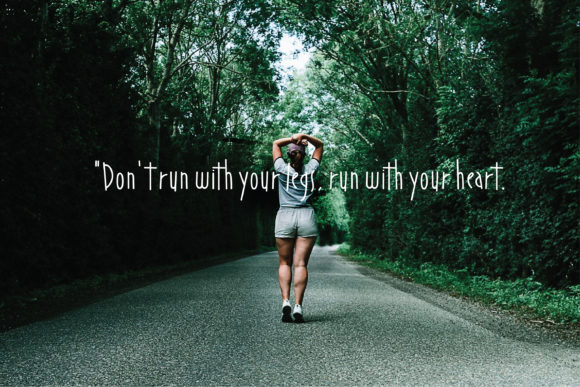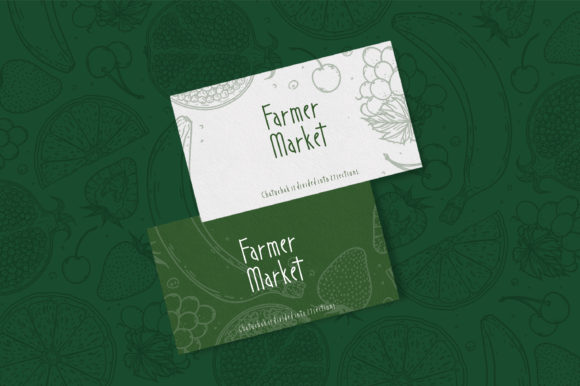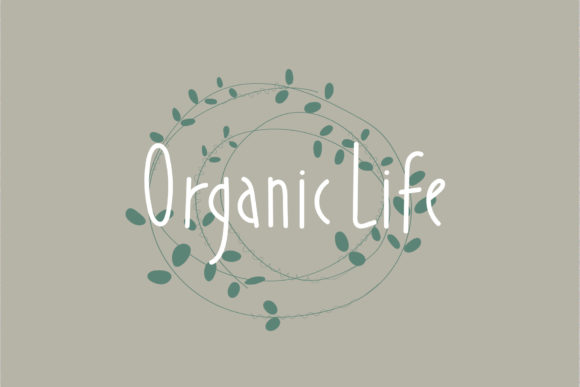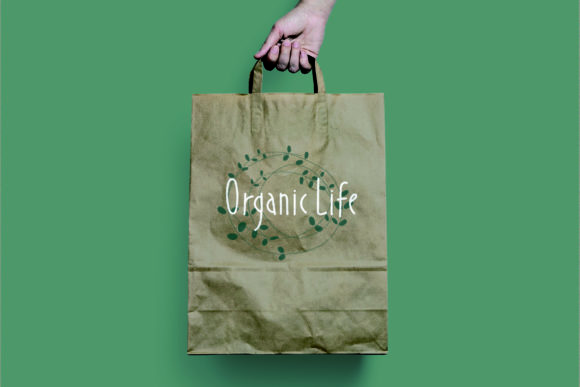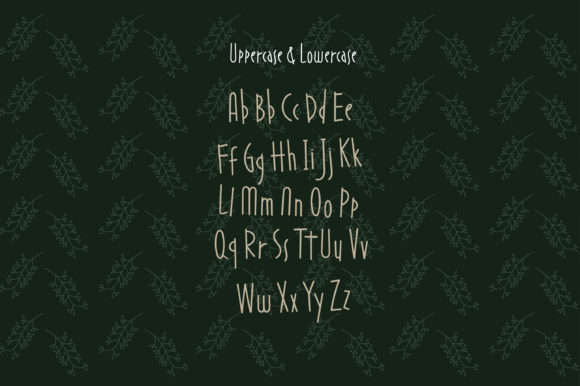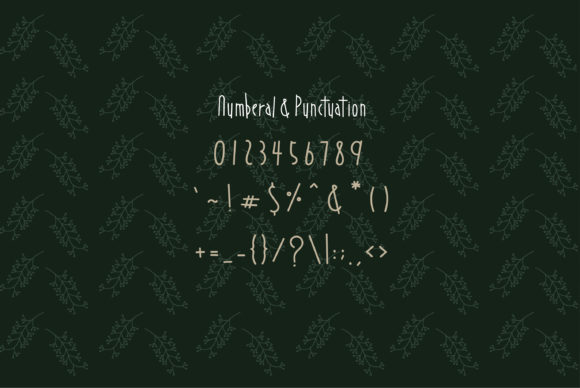
Introducing Decaf Font: The Perfect Handwritten Font for Creative Projects
Are you a designer or crafter looking for a font that can add a personal touch to your creative projects? Look no further than Decaf Font, a simple and casual handwritten font that’s perfect for bringing your ideas to life. In this article, we’ll explore the features and benefits of Decaf Font, and show you how to make the most of this versatile and charming font.
What is Decaf Font?
Decaf Font is a beautiful, handwritten font that’s designed to be easy to read and fun to use. With its casual, laid-back vibe, Decaf Font is perfect for a wide range of creative projects, from DIY crafts and scrapbooking to branding and marketing materials. Whether you’re looking to add a personal touch to your designs or create a unique and memorable brand identity, Decaf Font is the perfect choice.
Key Features of Decaf Font
So what makes Decaf Font so special? Here are just a few of its key features:
- Simple and easy to read: Decaf Font is designed to be clear and legible, making it perfect for use in a wide range of creative projects.
- Casual and laid-back vibe: Decaf Font has a relaxed, informal feel that’s perfect for adding a personal touch to your designs.
- Handwritten with love: Decaf Font is a genuine handwritten font, crafted with care and attention to detail to give it a unique and authentic feel.
- Versatile and adaptable: Decaf Font can be used in a wide range of creative projects, from digital designs to print materials.
How to Use Decaf Font in Your Creative Projects
Decaf Font is incredibly easy to use, and can be incorporated into your creative projects in a variety of ways. Here are a few ideas to get you started:
- DIY crafts and scrapbooking: Add a personal touch to your DIY crafts and scrapbooking projects with Decaf Font.
- Branding and marketing materials: Use Decaf Font to create unique and memorable brand identities, including logos, business cards, and brochures.
- Digital designs: Incorporate Decaf Font into your digital designs, including social media graphics, blog posts, and website headers.
- Paper crafts and card making: Add a touch of personality to your paper crafts and card making projects with Decaf Font.
Tips and Tricks for Getting the Most Out of Decaf Font
Here are a few tips and tricks for getting the most out of Decaf Font:
- Experiment with different colors and textures: Decaf Font looks great in a wide range of colors and textures, so don’t be afraid to experiment and find the perfect combination for your project.
- Mix and match with other fonts: Decaf Font pairs well with a wide range of other fonts, so try mixing and matching it with different fonts to create a unique and interesting look.
- Use it to add a personal touch: Decaf Font is perfect for adding a personal touch to your designs, so don’t be afraid to use it to add a bit of personality and whimsy to your projects.
Decaf Font is a simple and casual handwritten font that’s perfect for adding a personal touch to your creative projects. With its easy-to-read design, casual vibe, and versatile adaptability, Decaf Font is the perfect choice for designers and crafters looking to bring their ideas to life. So why not give Decaf Font a try today and see how it can help take your creative projects to the next level?
Decaf Font: The Perfect Font for Creative Types
In conclusion, Decaf Font is a beautiful and versatile handwritten font that’s perfect for designers and crafters looking to add a personal touch to their creative projects. With its simple and easy-to-read design, casual vibe, and adaptable nature, Decaf Font is the perfect choice for anyone looking to bring their ideas to life. So why not give Decaf Font a try today and discover the difference it can make in your creative projects?